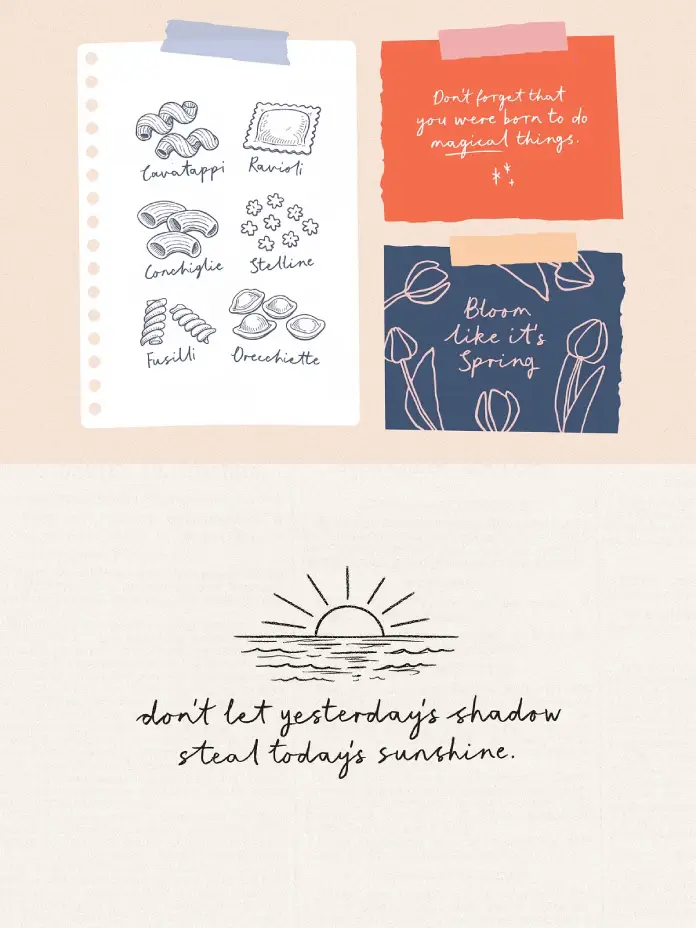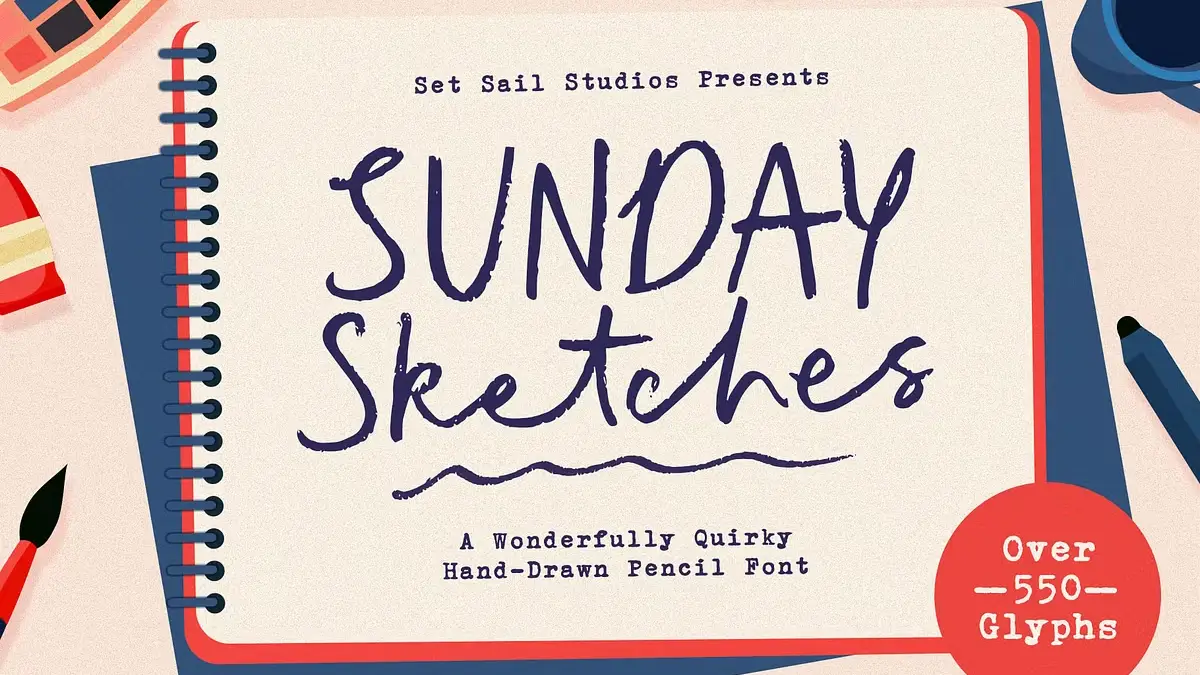
Design flourishes when it embraces imperfection. The Sunday Sketches font by Sam Parrett of Set Sail Studios captures this exact sentiment. Digital design often feels too sterile. Consequently, creatives seek tools that inject humanity back into their work. This handwritten typeface offers precisely that necessary warmth. It utilizes real pencil textures. Therefore, it bridges the gap between analog art and digital convenience. We must examine why the typeface became so trending in the genre of quirk, fun, handwritten typefaces.
What Distinguishes the Sunday Sketches Font from Standard Script Typefaces?
Most digital scripts suffer from “repetition fatigue.” This phenomenon occurs when identical characters appear side-by-side. It destroys the illusion of handwriting. However, the Sunday Sketches font solves this through a method I call the Glyphic Variation Velocity. This framework ensures that no two words look exactly alike. Sam Parrett designed this system intentionally.
He included over 550 glyphs in a single file. You receive multiple variations of each letter. Therefore, the text maintains a realistic, rough texture. The human nature of this font shines through every imperfect stroke. It feels organic. Designers rarely find such depth in a single package. The typeface surpasses most expectations for handwritten typography.
Understanding the Numeric Alternate System
Complexity often hinders creativity. Yet, Set Sail Studios prioritized usability here. They implemented a “Numeric Alternate System.” You simply turn on Standard Ligatures. Then, you type a number after a letter. For instance, typing ‘a1’, ‘a2’, or ‘a3’ generates distinct variations. This feature allows for rapid customization.
Consequently, you control the flow of the text. You choose the specific look of every character. This interaction makes the Sunday Sketches font a dynamic design tool. It is not merely a static asset. It functions as a creative partner.
The Importance of Organic Letter Connection
Flow determines readability. Handwritten fonts frequently fail here. They often look disjointed. In contrast, the Sunday Sketches font excels at Organic Letter Connection. This thesis suggests that letters should bleed into one another naturally. Parrett achieved this by hand-drawing the source material.
He used real pencils on paper. The software captures the grain and the pressure. Thus, the connections feel authentic. You do not see the digital seams. This quality makes this handwritten typeface ideal for large headers and brand identities.
How Does the Bonus Doodles Feature Enhance Visual Storytelling?
Typography tells only half the story. Visual elements must support the narrative. Fortunately, the Sunday Sketches font includes a massive bonus. This is the ‘Sunday Sketches Extras’ font file. It contains 52 unique doodle characters. You access these by selecting the separate font and typing letters A-Z.
These doodles include underlines, stars, hearts, arrows, and frames. Therefore, you build a cohesive visual language. You do not need to search for matching vector icons. They already exist within the font family. This integration saves time. Furthermore, it ensures stylistic consistency across your project.
However, non-designers benefit too. You can paste letters from Font Book on Mac or Character Map on Windows. It works in non-compatible software. Therefore, this handwritten typeface remains accessible to everyone. You do not need Adobe Creative Cloud to use it effectively.
Assessing the Global Reach through Language Support
Modern branding is global. A font must speak many languages. The Sunday Sketches font supports a vast array of European languages. It covers English, French, German, Spanish, and Portuguese. Furthermore, it supports distinctive alphabets like formatting in Czech, Polish, and Turkish.
This wide support creates value for international agencies. You can use this handwritten typeface for a campaign in London and adapt it for Berlin. The consistency remains. This versatility justifies the investment.
Why Should Designers Prioritize the Sunday Sketches Font for Future Projects?
We currently witness a shift in design trends. I define this as the “Tactile Digital Renaissance.” Audiences crave texture. They reject flat, corporate minimalism. The Sunday Sketches font perfectly aligns with this movement. It offers high-resolution detail.
The realistic rough texture catches the eye. It stops the scroll on social media. Moreover, the quirky nature of this font conveys authenticity. Brands use it to sound human. They use it to sound approachable. Therefore, using the typeface is a strategic branding decision.